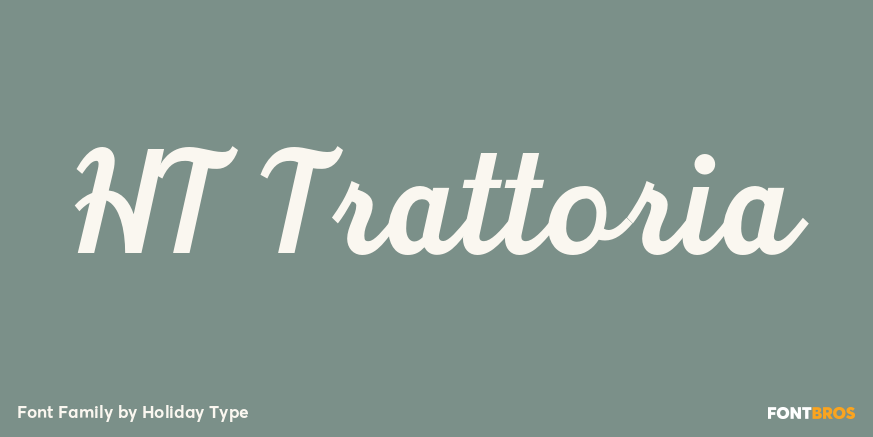
HomeFont BrosArt Deco (1910-1935)HT Trattoria Art Deco (1910-1935)Scripts: CasualScripts: FormalRetro (1936-1965) HT Trattoria FacebookXPinterestWhatsApp 1 of 1 About HT Trattoria Retro script based on shopfront lettering, wallpaint advertisements in Italy around 1950s.  DOWNLOAD NOW People also explored Chendany Font Ottbelix Font Qoimsya Font Molyssa Font Chattey Font Austing Font Sakilla Font Bigsta Font Indegethe Font 443 0 TagsHT Trattoria Font Previous articleHoverunitNext articleTrinket LEAVE A REPLY Cancel reply Comment: Please enter your comment! Name:* Please enter your name here Email:* You have entered an incorrect email address! Please enter your email address here Website: Save my name, email, and website in this browser for the next time I comment. Personal Use Free Rellista Script Personal Use Free Read more about this font Hatia Script Personal Use Free Read more about this font Zelega Zenega Personal Use Free Read more about this font Royal Bengal Tiger Personal Use Free Read more about this font BLOG Fonts That Capture the Spirit of New York City New York City is more than just a place—it’s an experience, a rhythm, a visual language... Where to Buy American Fonts Online in 2024 How to Cut Any Font on Cricut: Convert a Font to SVG (Free) Exploring Font Trends